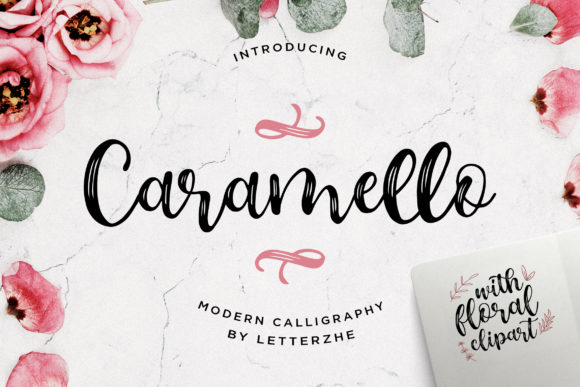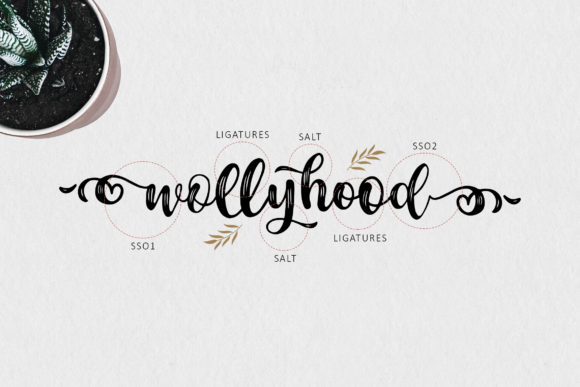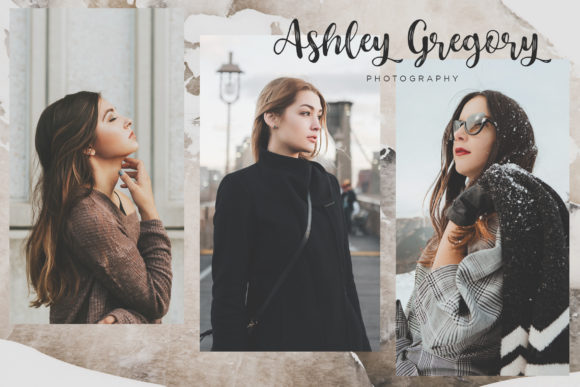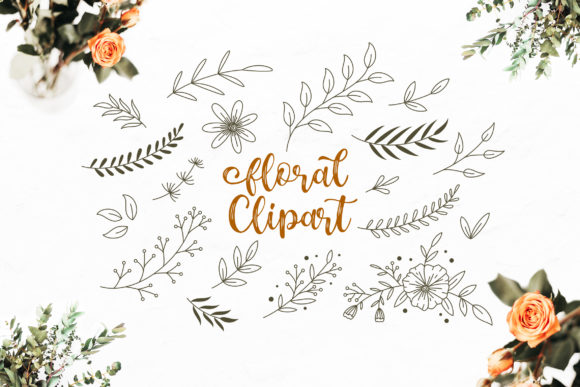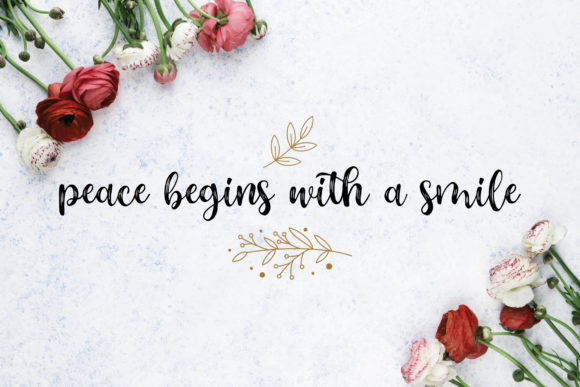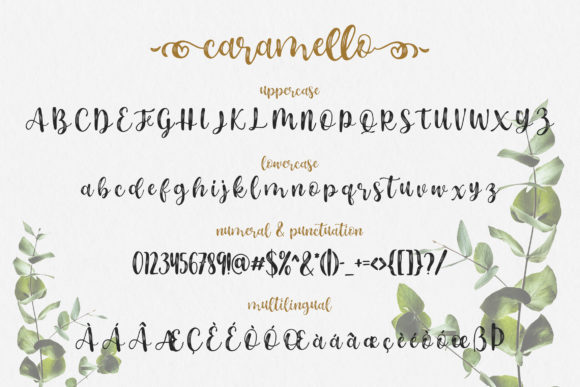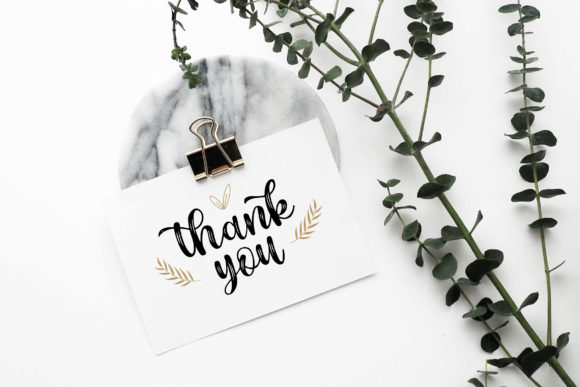
HomeScript FontsCaramello Font Script Fonts Caramello Font FacebookXPinterestWhatsApp Caramello Font Poster 2 Caramello Font Poster 3 Caramello Font Poster 4 Caramello Font Poster 5 Caramello Font Poster 6 Caramello Font Poster 7 About Caramello Font Caramello is an incredibly sweet and unique handwritten font that will turn any design project into a stand out. DOWNLOAD NOW People also explored Atlantis Gillimore Font Distress College Grunge Font Christmas Happiness Font Handmade Font MeeMee Font Mellisa Hella Font Wedding Font Sidehustle Font 330 0 TagsCaramello Font Previous articleThe Qualities FontNext articleSky Love Font LEAVE A REPLY Cancel reply Comment: Please enter your comment! Name:* Please enter your name here Email:* You have entered an incorrect email address! Please enter your email address here Website: Save my name, email, and website in this browser for the next time I comment. Personal Use Free Andolas Personal Use Free Read more about this font Muthiara Font Personal Use Free Read more about this font Cinderella Personal Use Free Read more about this font Pouline Personal Use Free Read more about this font BLOG Top 7 Google Fonts Alternatives for Faster and Privacy-Friendly Web Design (2025) Top 7 Google Fonts Alternatives for Faster and Privacy-Friendly Web Design (2025) When it comes to web typography, Google Fonts has long been the go-to... Using Fonts in Digital Marketing: Tips to Strengthen Your Brand Identity Transform Your Website: Elevate Your Typography with 7 Best Web Font Generators Where to Buy American Fonts Online in 2024